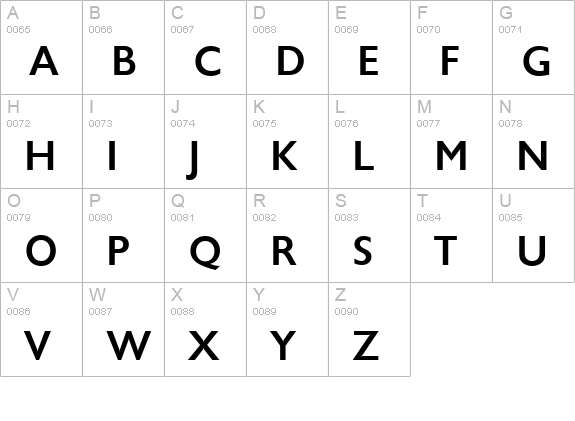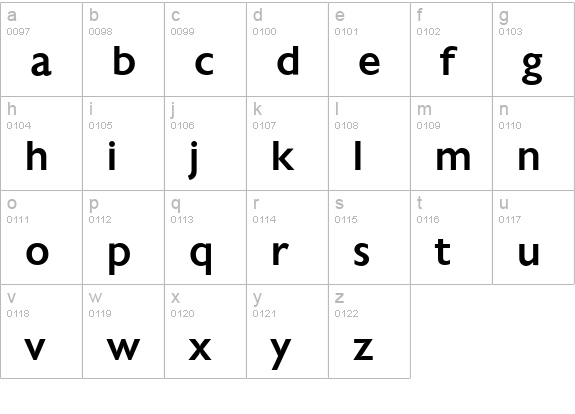
ChantillySerial-Medium-Regular is a balanced, medium-weight variant in the ChantillySerial typeface family \xE2\x80\x94 well suited to sub-headlines, navigation, and balanced editorial work.
ChantillySerial-Medium-Regular font is a versatile and elegant typeface that exudes a sense of sophistication and charm. Its medium weight strikes the perfect balance between readability and style, making it ideal for a wide range of design projects. The clean lines and classic proportions of this font make it a timeless choice for both print and digital media. What sets ChantillySerial-Medium-Regular font apart is that it is available for free download at FontsMarket.com. This means that you can easily access and use this beautiful font in your creative endeavors without any cost. Whether you're designing a logo, creating a website, or working on a branding project, ChantillySerial-Medium-Regular font is a fantastic option that won't break the bank. With its timeless appeal and free availability, ChantillySerial-Medium-Regular font is a must-have addition to any designer's toolkit. Download it today and elevate your designs with a touch of elegance and sophistication.